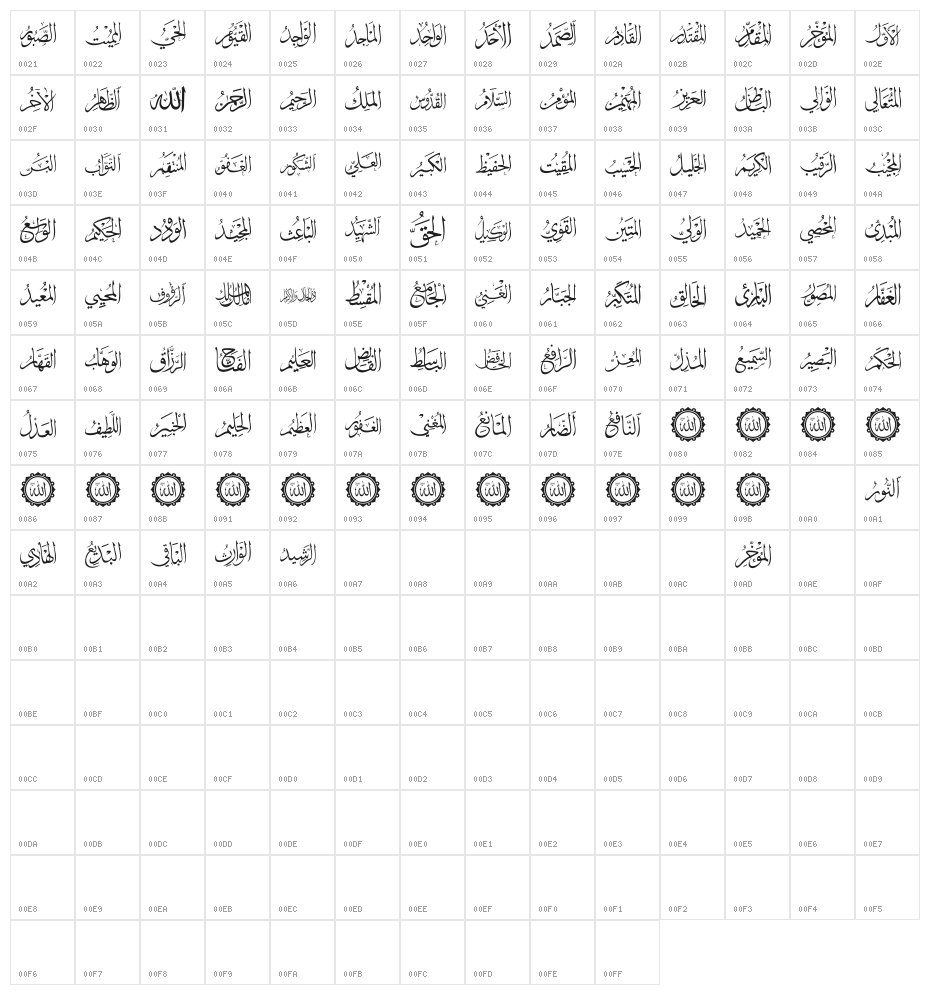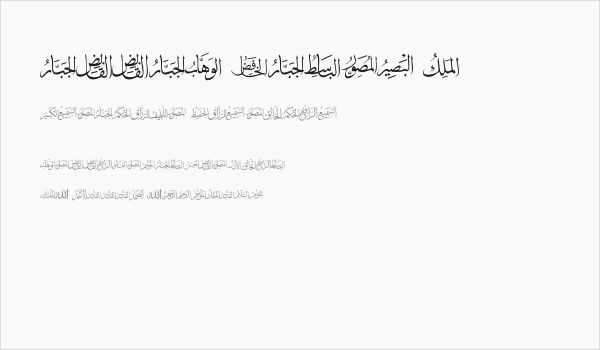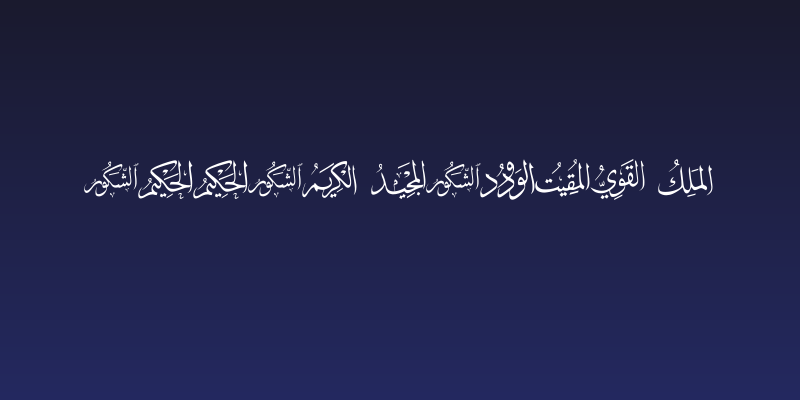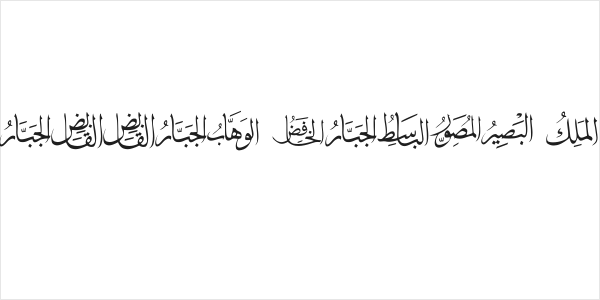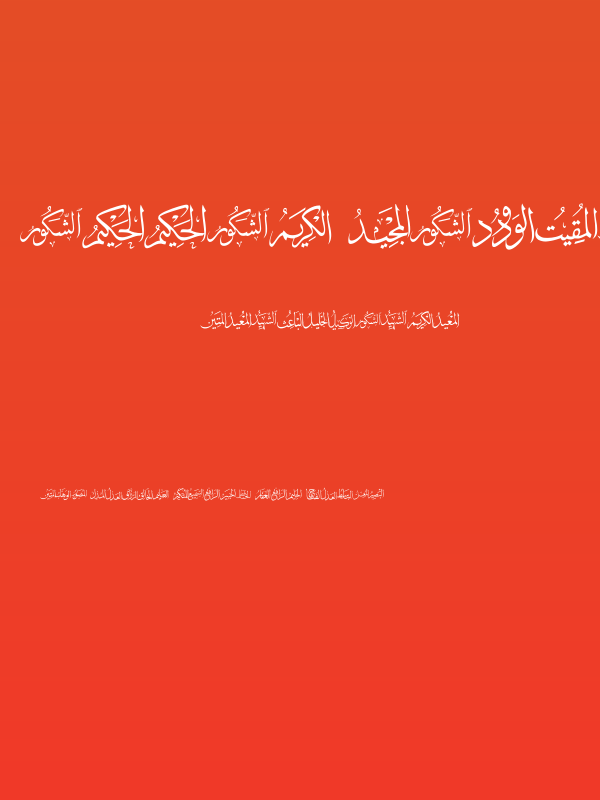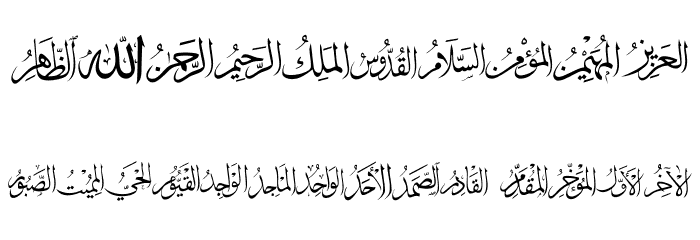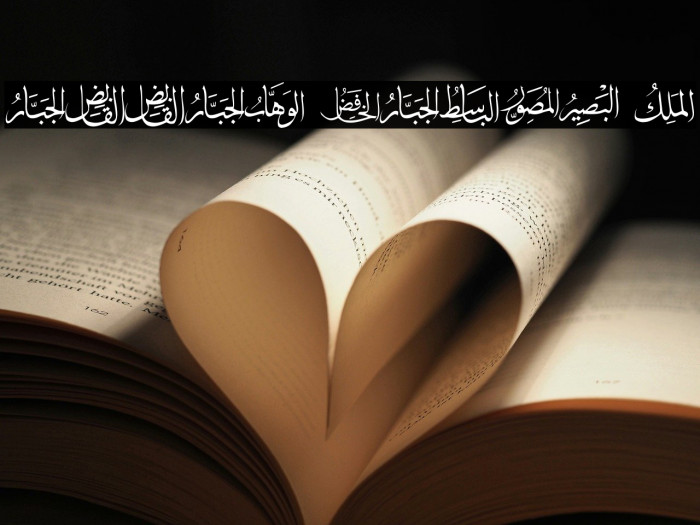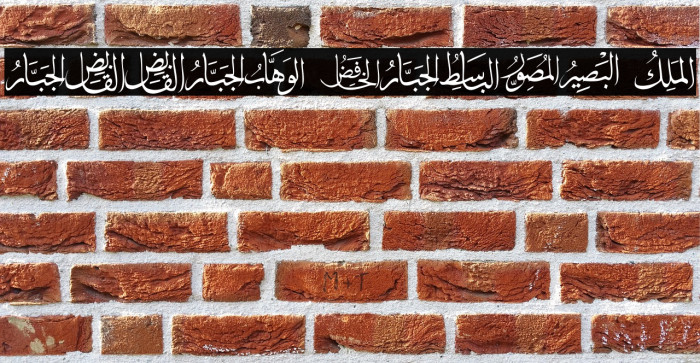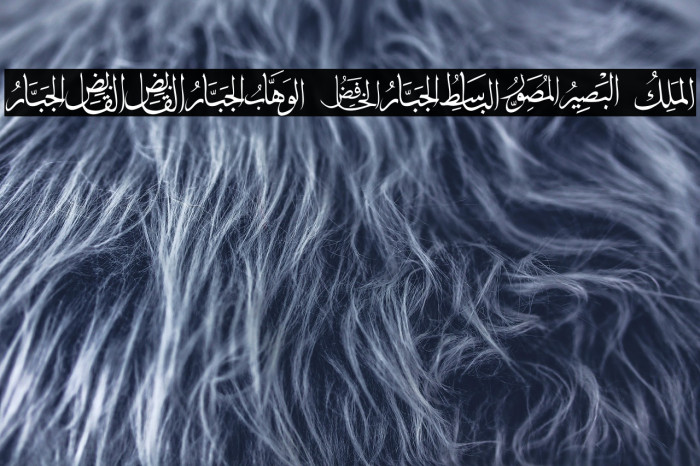
allah names 4 Font
allah names 4 Description
This font exhibits a classic and elegant style, characterized by its flowing script and intricate detailing. The characters are connected in a fluid manner, typical of traditional Arabic calligraphy. The strokes vary in thickness, providing a dynamic contrast that enhances readability while maintaining an artistic flair. The font's design is both sophisticated and timeless, making it suitable for formal and religious contexts. Its ornate nature is balanced by a clear structure, ensuring that each letter is distinct yet harmoniously integrated into the overall design.
| Use Case | Religious texts, Formal documents |
| Proposed Projects | Ideal for religious texts, formal invitations, certificates, and cultural projects that require a touch of traditional elegance. |